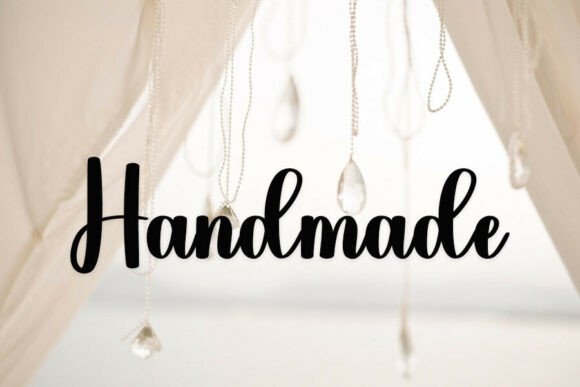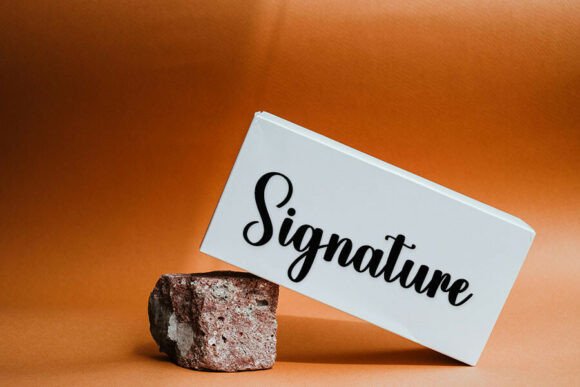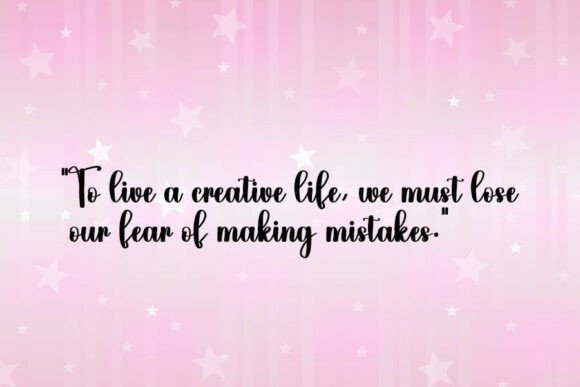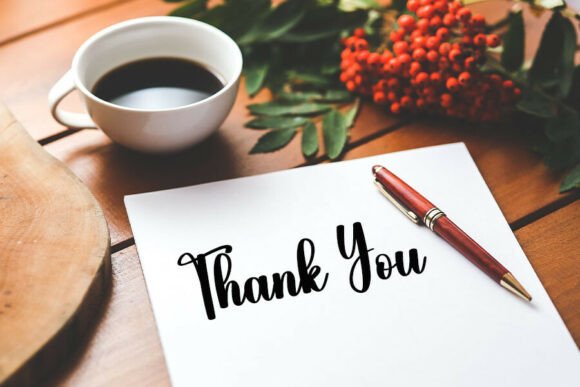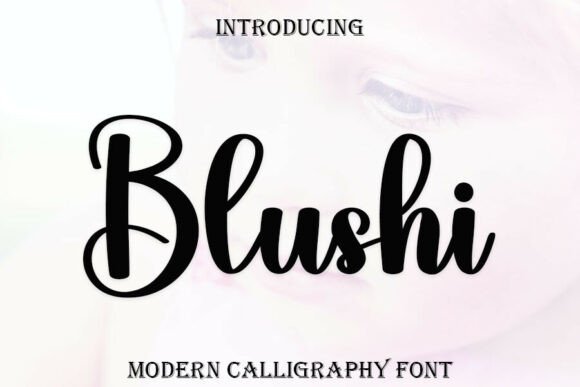
Introducing Blushi Font: Elevate Your Design with a Delicate Handwritten Touch
In the world of typography, fonts play a crucial role in conveying the tone and personality of a brand or design. For those seeking a unique and cool aesthetic, Blushi Font is an excellent choice. This delicate handwritten font has been carefully crafted to add a touch of elegance and sophistication to various design projects. Whether you’re a designer, crafter, or DIY enthusiast, Blushi Font is sure to inspire your creativity.
What is Blushi Font?
Blushi Font is a beautiful, handwritten typeface that exudes a sense of refinement and charm. Its delicate strokes and intricate details make it perfect for designs that require a personal touch. This font is ideal for writing letters, creating invitations, labeling food products, crafting titles, and more. With Blushi Font, you can add a dash of personality to your designs and make them stand out from the crowd.
Key Features of Blushi Font
- Delicate Handwritten Style: Blushi Font boasts a unique, handwritten look that adds a touch of warmth and elegance to any design.
- Cool and Unique Design: This font’s distinctive style makes it perfect for designers and crafters seeking a fresh and modern aesthetic.
- Versatile: Blushi Font can be used for a wide range of design projects, from letters and invitations to food labels and titles.
- Easily Readable: Despite its delicate nature, Blushi Font remains easily readable, making it suitable for both digital and print designs.
Uses of Blushi Font
- Stationery and Invitations: Add a personal touch to your letters, invitations, and greeting cards with Blushi Font.
- Food Packaging and Labels: Use Blushi Font to create eye-catching labels for food products, bakeries, or restaurants.
- Titles and Headings: Elevate your blog posts, articles, or social media graphics with Blushi Font’s elegant and refined style.
- DIY Projects: Incorporate Blushi Font into your craft projects, such as handmade cards, scrapbooking, or journaling.
Blushi Font is a beautiful, delicate handwritten font that can elevate your designs and add a touch of elegance. Its versatility, readability, and unique style make it an excellent choice for designers, crafters, and DIY enthusiasts. Whether you’re creating stationery, food labels, titles, or engaging in DIY projects, Blushi Font is sure to inspire your creativity and help you achieve a cool and unique design.